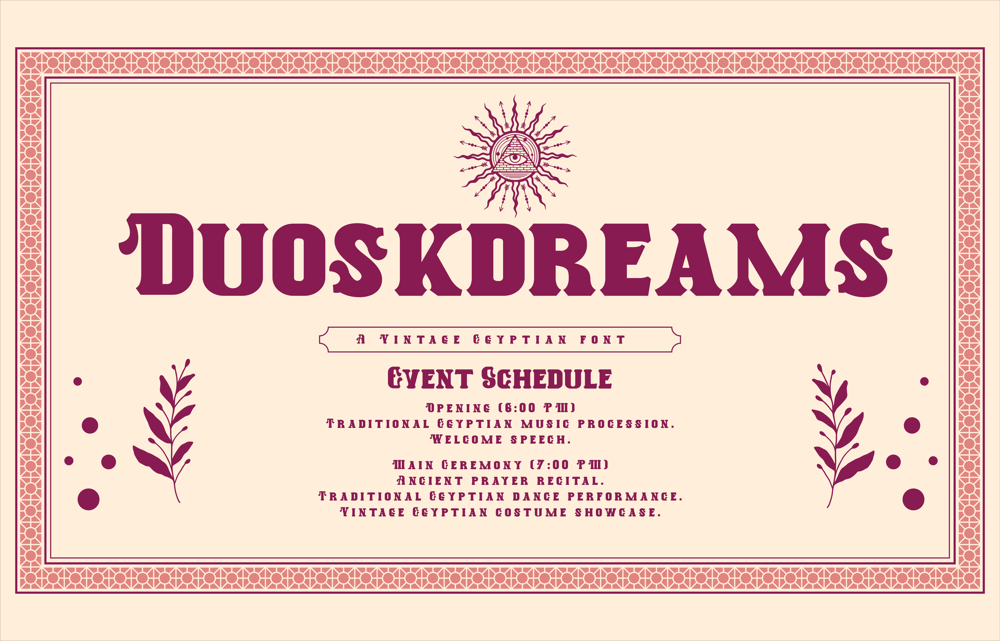
Duoskdreams Font Family was designed by Agus Prima and published by Valiantbrotha. Duoskdreams contains 2 styles and family package options. A bold vintage serif font that effortlessly blends timeless elegance with a modern edge. With its striking, sharp lines and classic serifs, this typeface brings a sense of sophistication and nostalgia to any design. Perfect for making a statement in headlines, posters, and branding, Doskdreams exudes both strength and charm, evoking a vintage aesthetic while maintaining a bold presence in the contemporary world